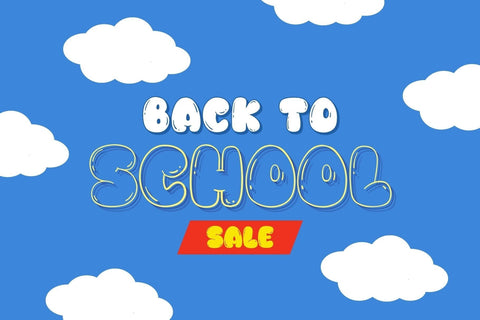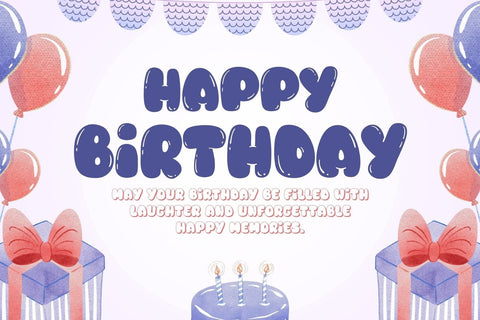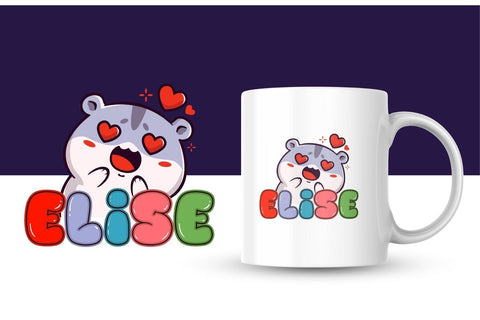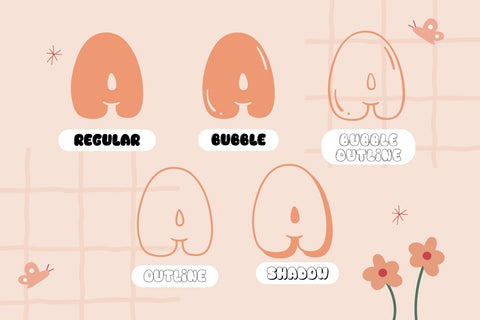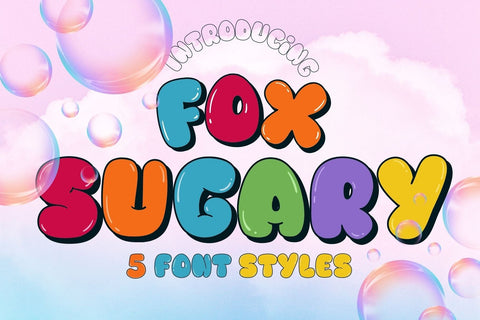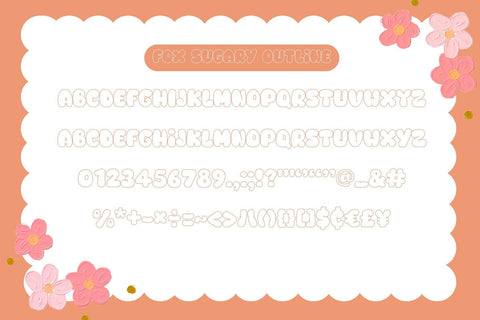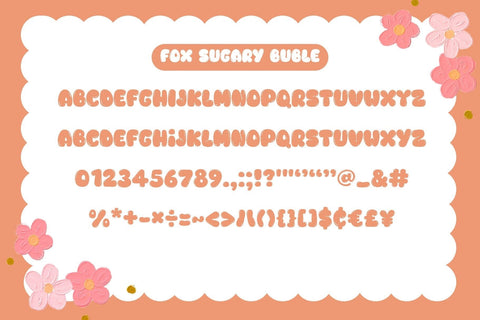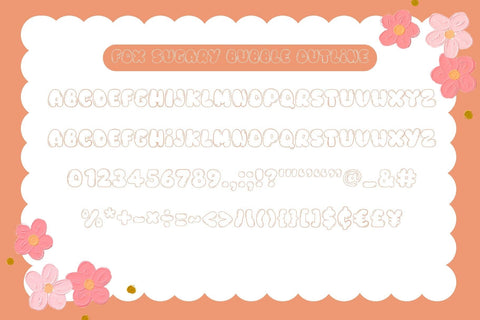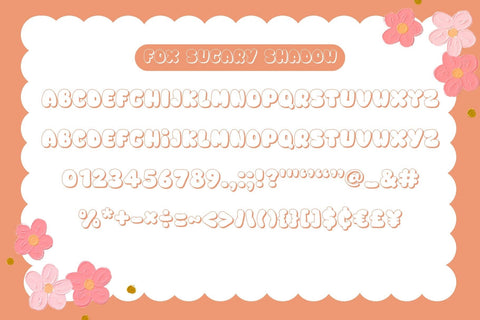
Fox Sugary: 5 Font Styles
The "Fox Sugary" font is a lively and whimsical display typeface, offering five distinct styles that capture a sense of fun and sweetness. Its bold, bubble-like characters bring an energetic charm, making it an ideal choice for perfect for children’s designs, such as party invitations, playful branding, or vibrant designs. Whether you're crafting t-shirts, stickers, children's book covers, or social media posts, the Fox Sugary font effortlessly elevates your work, adding a cheerful and eye-catching flair that ensures your designs stand out in any playful context.